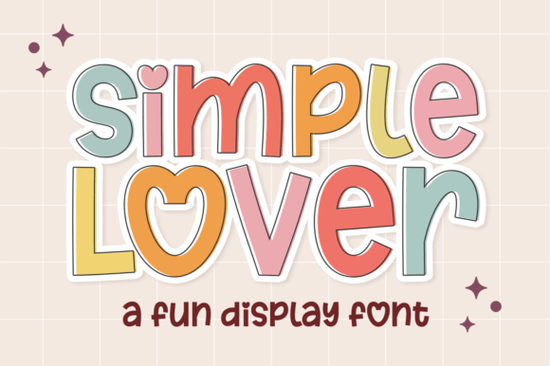
When you're looking for a font that can add a playful and quirky touch to your designs, the Simple Lover Font is a fantastic choice. This display font is perfect for a variety of creative projects, from school-themed designs to birthday invitations, and it brings a delightful, whimsical feel to any project.
Why Choose Simple Lover Font for Your Creative Projects?
The Simple Lover Font stands out with its unique and charming style. It's designed to bring a sense of fun and playfulness to your work, making it ideal for projects that need a lighthearted and joyful vibe. Whether you're designing festive greetings, crafting chic t-shirts, or working on DIY projects, this font can help you create something truly special.
Perfect for a Variety of Creative Needs
The versatility of the Simple Lover Font makes it a great addition to your design toolkit. Here are some ways you can use it:
- Birthday Invitations: Add a playful touch to your birthday party invites with this font. It's sure to make your guests smile.
- School Themes: Use it for classroom decorations, bulletin boards, or even for creating fun educational materials.
- Festive Greetings: Whether it's Christmas, Easter, or any other holiday, this font can add a cheerful and festive feel to your cards and messages.
- T-Shirt Designs: Create unique and eye-catching t-shirts that stand out with the quirky charm of this font.
- DIY Projects: From custom stickers to sublimation prints, this font can be used in a wide range of DIY projects.
How Does Simple Lover Font Compare to Other Display Fonts?
While there are many display fonts available, the Simple Lover Font has a distinctive personality that sets it apart. If you're looking for something with a similar playful and quirky feel, you might also consider the Rancher Capital or Aristoreva fonts. Both of these offer a unique and lively style, but the Simple Lover Font has a more whimsical and carefree quality that can really bring your designs to life.
Is Simple Lover Font Easy to Use?
Absolutely! The Simple Lover Font is designed to be user-friendly and easy to incorporate into your projects. Whether you're using graphic design software like Adobe Illustrator or Photoshop, or even simpler tools like Canva, you'll find that this font integrates seamlessly. Its clean lines and clear readability make it a pleasure to work with, even for those who are new to font usage.
Practical Tips for Using Simple Lover Font
To get the most out of the Simple Lover Font, here are a few practical tips:
- Test Different Sizes: Experiment with different font sizes to see what works best for your specific project. Smaller sizes can be great for subtle details, while larger sizes can make a bold statement.
- Combine with Other Fonts: Consider pairing the Simple Lover Font with a more traditional or minimalist font to create a balanced and visually appealing design.
- Use Color Wisely: Play around with color to enhance the playful nature of the font. Bright, vibrant colors can complement its whimsical style, while pastels can give it a softer, more delicate feel.
- Keep It Readable: While the Simple Lover Font is fun and playful, make sure it remains readable. Avoid using it for long blocks of text, and instead, use it for headlines, titles, or short phrases.
By following these tips, you can effectively use the Simple Lover Font to add a touch of playfulness and creativity to your designs. Whether you're a designer, crafter, or small business owner, this font is a great tool to have in your creative arsenal.